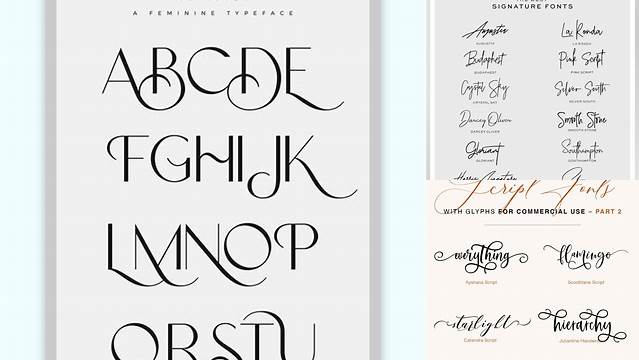
Free Cursive Fonts With Glyphs: Download & Elevate Designs
Hey guys! Ever feel like your designs are missing that special something? Maybe they're just a little... bland? Well, if you're nodding your head, you're in the right place! Today, we're diving headfirst into the wonderful world of free cursive fonts with glyphs. These aren't your average, run-of-the-mill fonts. We're talking about fonts that ooze elegance, personality, and a touch of that handwritten magic. And the best part? They come with a treasure trove of glyphs – those extra characters and stylistic alternates that let you truly customize your text and make it pop!
What are Cursive Fonts and Why Do You Need Them?
So, what exactly are cursive fonts? Think of them as the digital descendants of elegant handwriting. They're characterized by their flowing, connected letterforms, designed to mimic the grace and fluidity of writing with a pen. They add a touch of sophistication, intimacy, and a personal feel that's hard to achieve with standard fonts. These fonts are all about that handwritten style, making your projects feel more authentic and engaging. But what really makes them sing? The glyphs, of course!
Glyphs are the secret sauce. They're the extra characters, flourishes, and stylistic alternates that give you the power to fine-tune your text and make it truly unique. Imagine swashes that elegantly sweep across the page, connecting letters in a way that feels both artistic and effortless. Think about alternate letterforms that add a touch of flair to certain words, making them stand out and grab the reader's attention. Glyphs are the subtle details that transform a good design into a great one. They allow you to create visual harmony. This gives you the power to create visual harmony and to inject personality. And trust me, when used correctly, they can make your designs sing!
Why should you care about cursive fonts, and especially those with glyphs? Because they offer a level of versatility that can elevate your designs from basic to brilliant. Here are a few reasons why they're essential:
- Adding Personality: Cursive fonts immediately inject personality and character into your designs. They're perfect for projects where you want to create a sense of intimacy, elegance, or a personal touch. Think wedding invitations, greeting cards, logos, or any project where you want to make a memorable impression.
- Boosting Readability: While some cursive fonts can be challenging to read in large blocks of text, those with well-designed letterforms and clear glyphs can actually enhance readability in headlines, short paragraphs, and call-to-actions. They can draw the eye and create visual interest, making your content more engaging.
- Creating Visual Harmony: Glyphs are the key to achieving visual harmony in your designs. By carefully selecting and incorporating different glyphs, you can create a cohesive and aesthetically pleasing look that's tailored to your specific needs. They allow you to connect letters. This creates seamless visual and ensures a consistent style throughout your text.
- Standing Out from the Crowd: In a world saturated with generic fonts, using a unique cursive font with well-chosen glyphs is a surefire way to make your designs stand out. They'll make a lasting impression. It showcases your creativity and attention to detail. They are a reflection of your brand's personality.
- Versatility: Cursive fonts with glyphs are incredibly versatile. They can be used in a wide range of projects, from personal branding and social media graphics to website headers and print materials. They adapt to any need and transform any project.
Ultimately, incorporating cursive fonts with glyphs into your design toolkit opens up a world of creative possibilities. They allow you to infuse your projects with personality, elegance, and a touch of handwritten charm. So, let's get started and explore some fantastic free cursive fonts with glyphs that will take your designs to the next level.
Top Free Cursive Fonts with Glyphs to Download Now
Alright, let's get down to the good stuff! I'm talking about the fonts themselves! I've rounded up some of my favorite free cursive fonts, all of which come with a generous helping of glyphs to unleash your creativity. These fonts are perfect for both personal and commercial use (always double-check the license!). Let's get to it:
1. Great Vibes
Great Vibes is a classic choice. It’s a beautiful, flowing script font that exudes elegance and sophistication. Its delicate letterforms and subtle details make it perfect for a wide range of projects, from wedding invitations to branding materials. Great Vibes is known for its clean lines and excellent readability, making it a great choice for longer text passages. This font is perfect if you want a classic, elegant font. It is also a good option for beginners.
- Key Features: Graceful, connected letterforms, extensive glyph support, good readability, perfect for both personal and commercial use.
- Best Used For: Wedding invitations, greeting cards, logos, branding.
- Why It's Great: Great Vibes is easy to read, even at smaller sizes. It offers a wide range of glyphs. These offer a lot of customization options for your project. It’s a reliable, versatile option that delivers beautiful results.